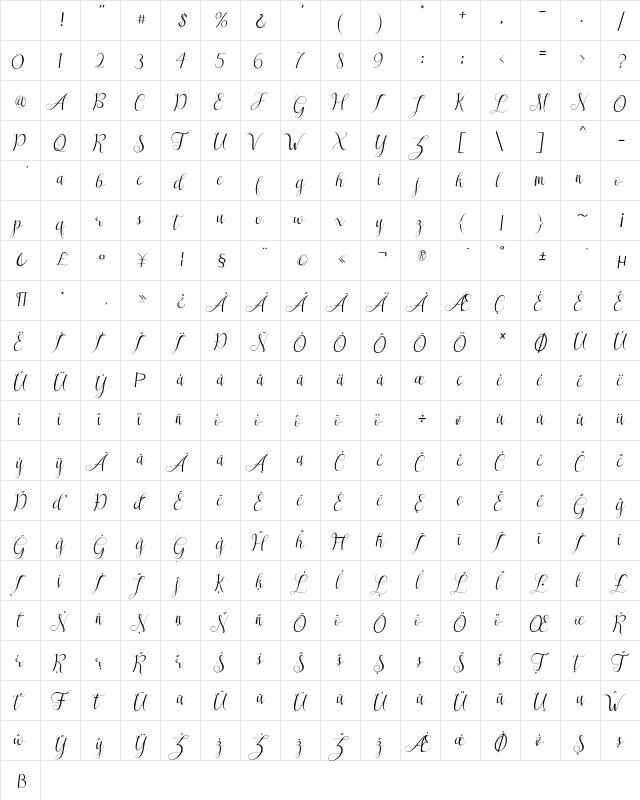
Complete Sareeka Script Free glyph index. Displaying only characters natively supported by Sareeka Script Free font.
Sareeka flows with the natural rhythm of handwritten lettering, making it ideal for designs that call for warmth and personal expression.
Font Pairing: Combine Sareeka with a simple geometric sans for maximum contrast - the tension between flowing curves and clean structure is a classic typographic pairing.
Pro Tip: Use Sareeka for short runs of text - names, titles, or taglines. Extended body copy in script faces tires the eye quickly.